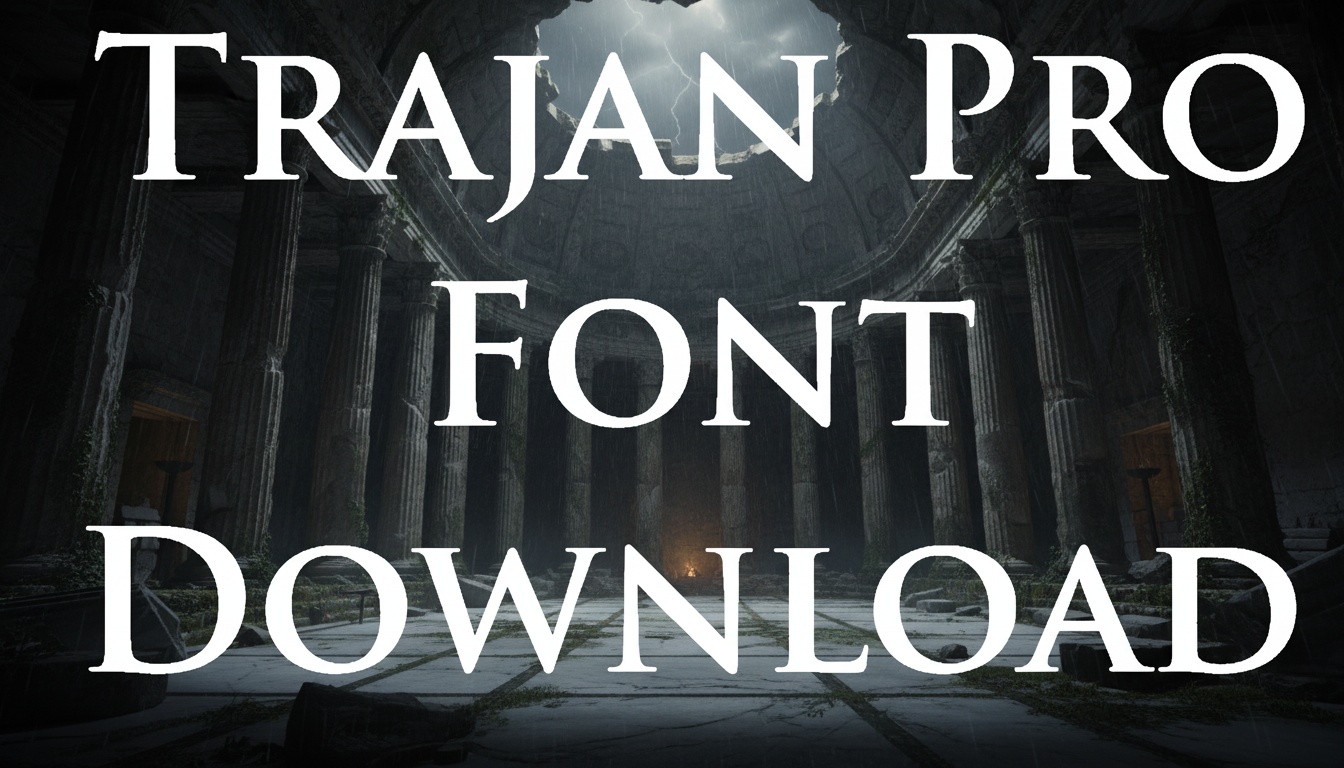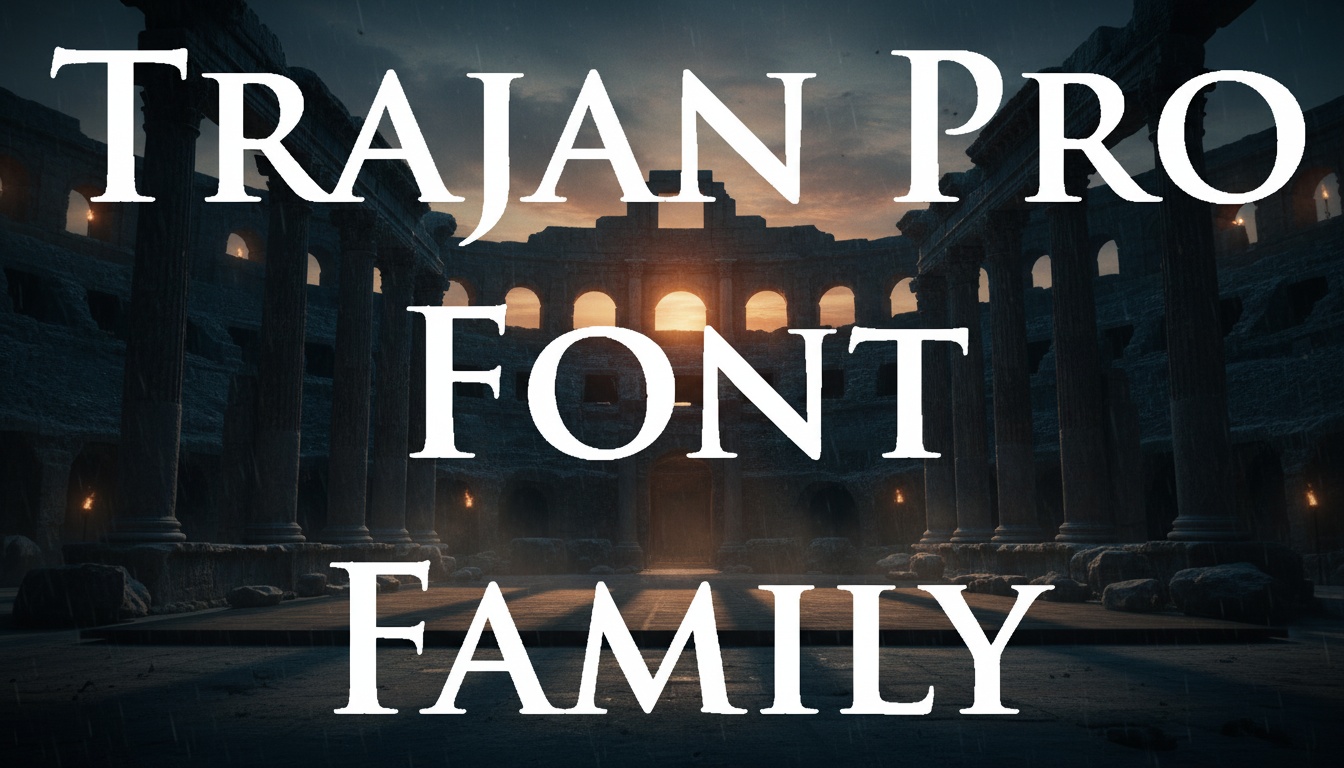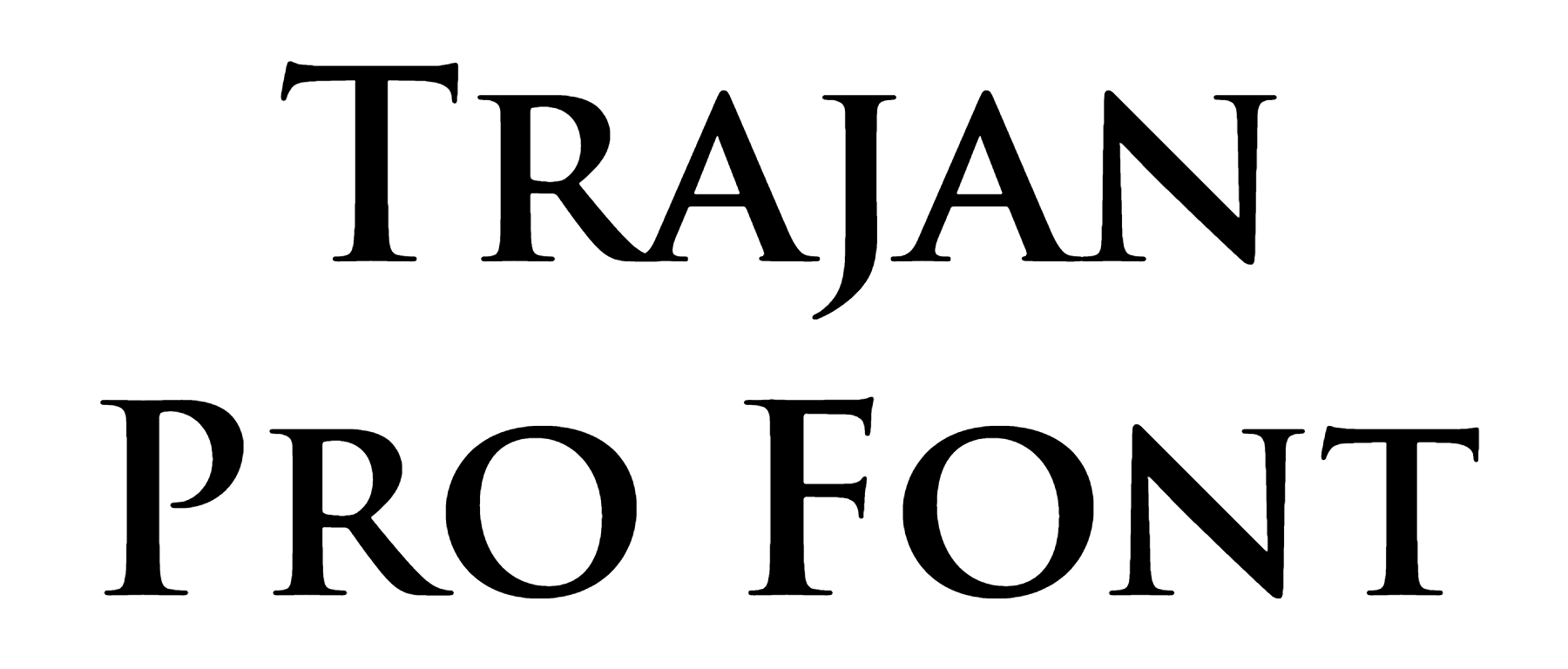
Trajan Pro
Trajan Pro is a serif font designed by Carol Twombly and published by Adobe Systems Incorporated (2000). Small strokes at the ends of its letters (the serifs) give it a classic, trustworthy look. You get two styles in one free ZIP, and the preview above lets you test each one before you download.
- Designer: Carol Twombly
- Publisher: Adobe Systems Incorporated
- Year: 2000 (from the copyright line in the font)
- Font styles: 2 (Regular and Bold)
What You Can Type With Trajan Pro
With complete upper and lowercase letters and all ten digits, Trajan Pro is ready for real wording, not just a single headline. Common punctuation such as &, !, ? and @ is included as well. It also has the accented letters you need for Spanish, French, German, Portuguese and Italian.
How to Use the Alternate Letters in Trajan Pro
Where Trajan Pro Works Best
Think of Trajan Pro for book covers, magazine headlines and classic branding. Its lowercase letters are tall compared to the capitals, which keeps it readable at smaller sizes. Serif fonts shine in headlines and printed text. For long paragraphs on phones, check that it still reads well at small sizes. Because the family has more than one style, you can mix them in a single design for headings, subheadings and highlights.
Who designed Trajan Pro font?
Trajan Pro was designed by Carol Twombly and published by Adobe Systems Incorporated. The copyright line inside the font is dated 2000. DafontStyle has 4 more fonts by Carol Twombly, and a few are linked above.
Does Trajan Pro support accented letters?
Yes. Trajan Pro includes the accented letters needed for Spanish, French, German, Portuguese and Italian, so it works for more than just English.